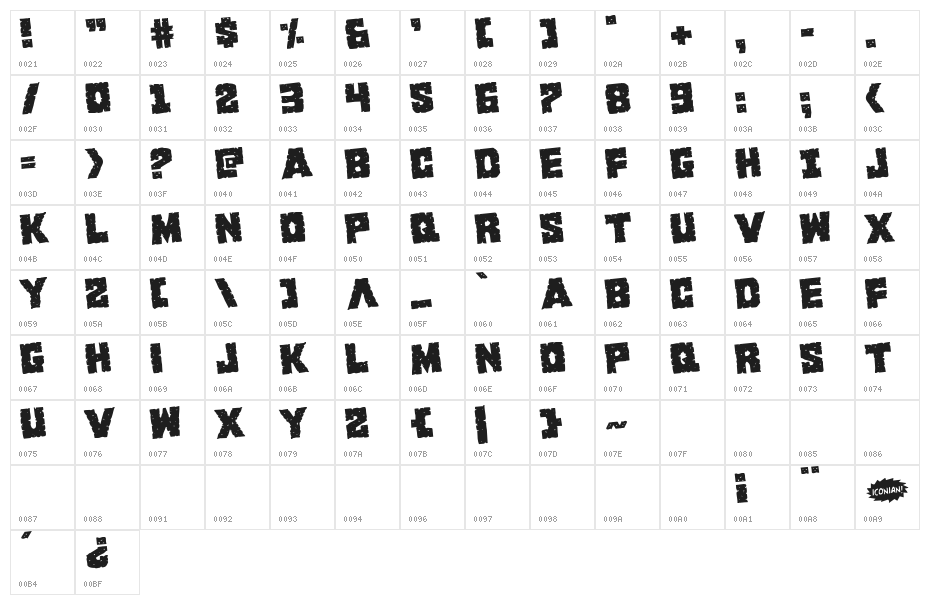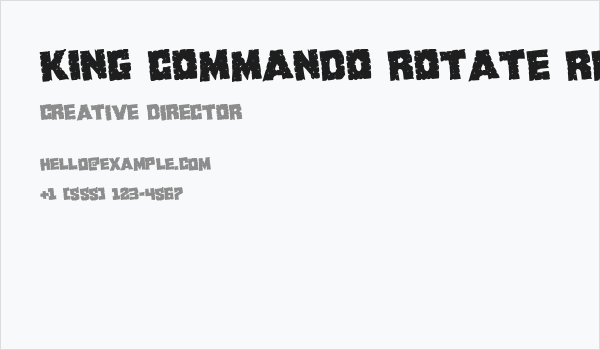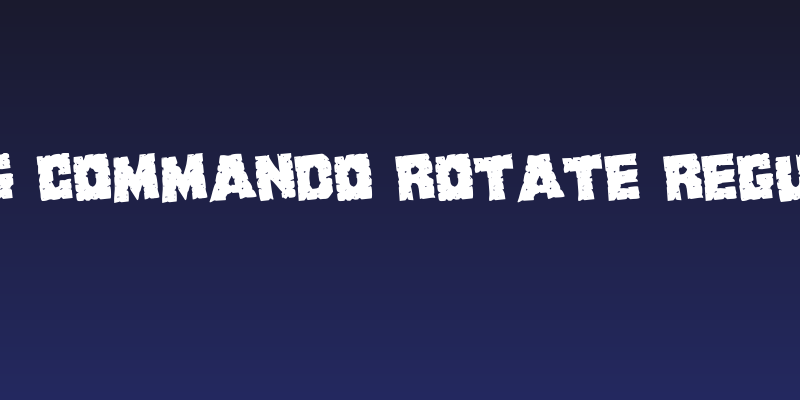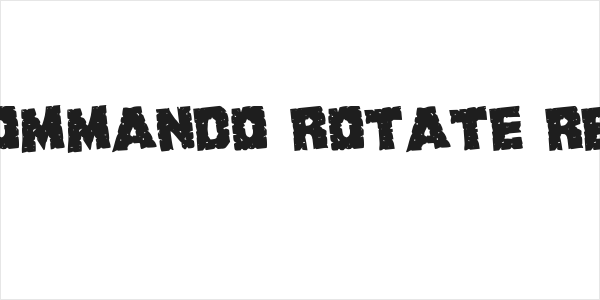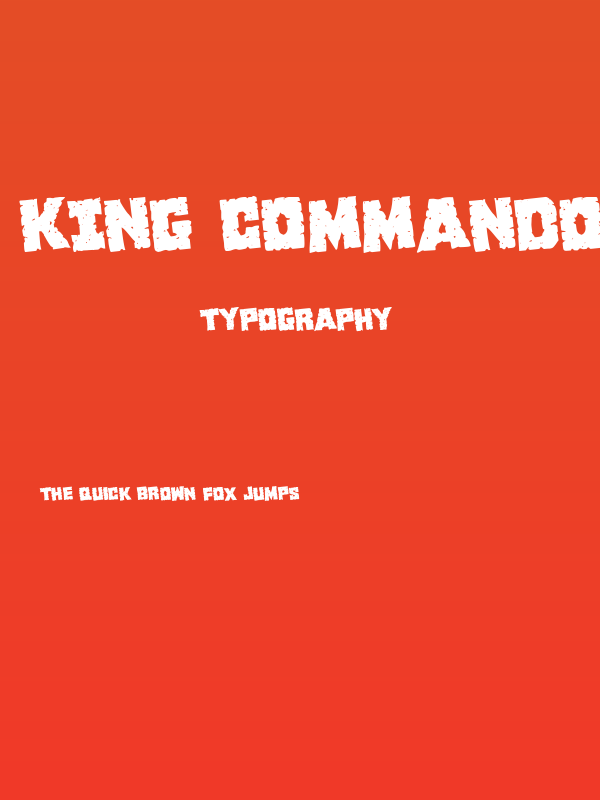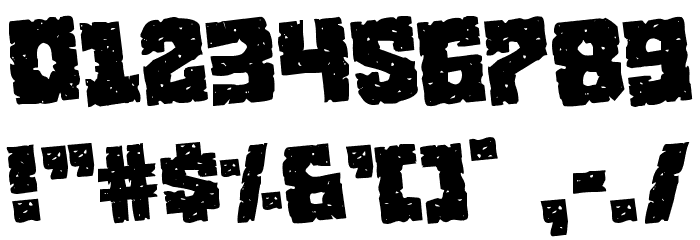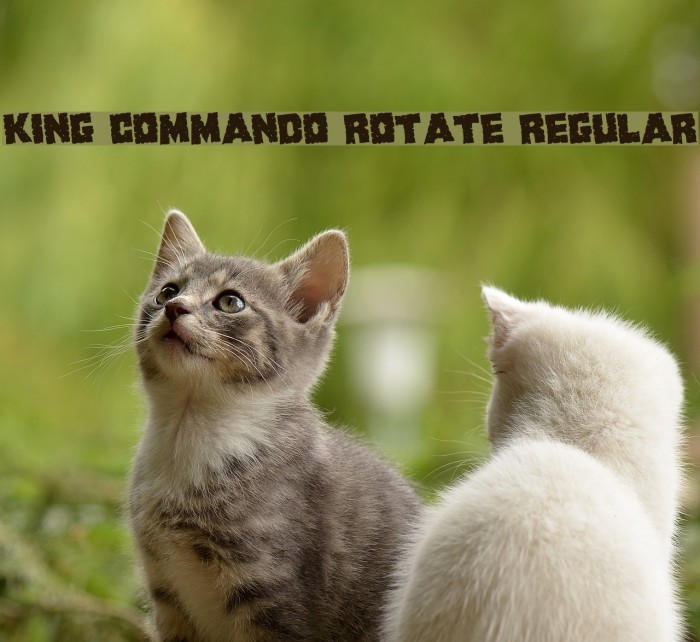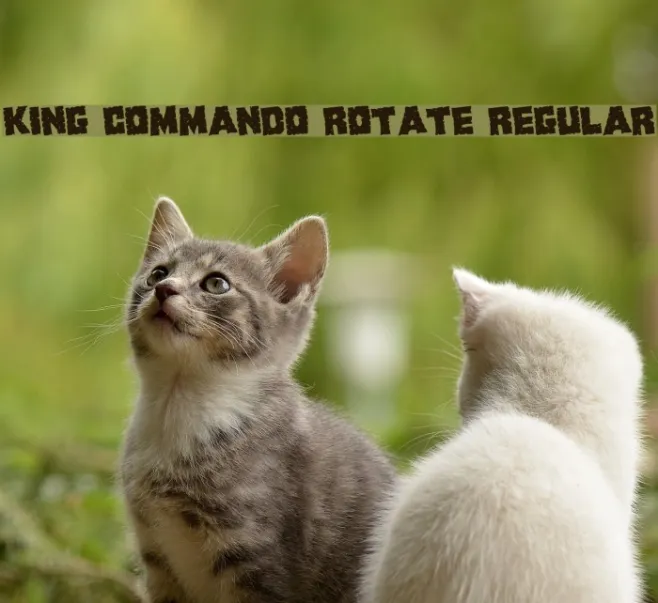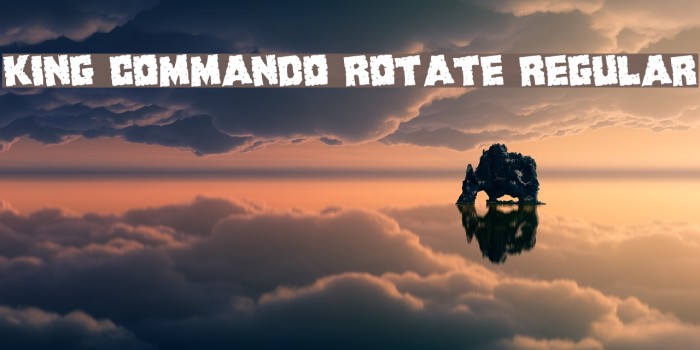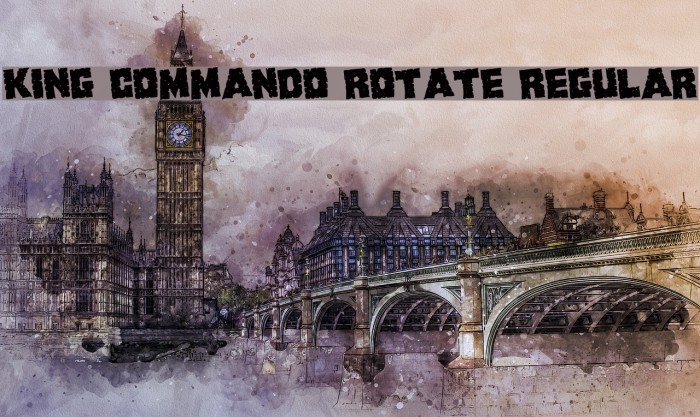
King Commando Rotate Regular Font
King Commando Rotate Regular Description
This font features a bold, rugged appearance with a distressed texture, giving it a commanding and impactful presence. The characters are heavily stylized with irregular edges, creating a sense of movement and energy. Each letter is distinct, with a blocky, robust form that suggests strength and durability. The font's unique texture adds a gritty, urban feel, making it ideal for projects that require a bold statement. Its design is reminiscent of military or industrial themes, perfect for capturing attention and conveying a sense of power.
| Proposed Projects | Ideal for posters, video game graphics, military-themed designs, and bold branding projects. |